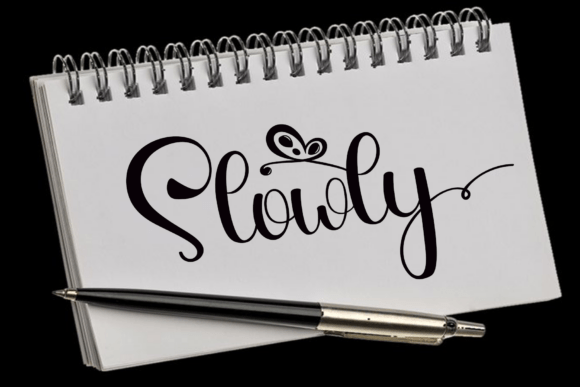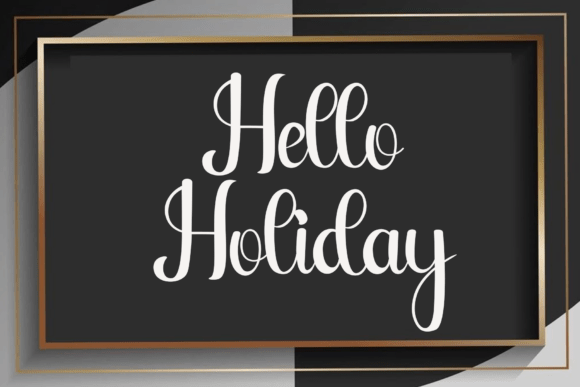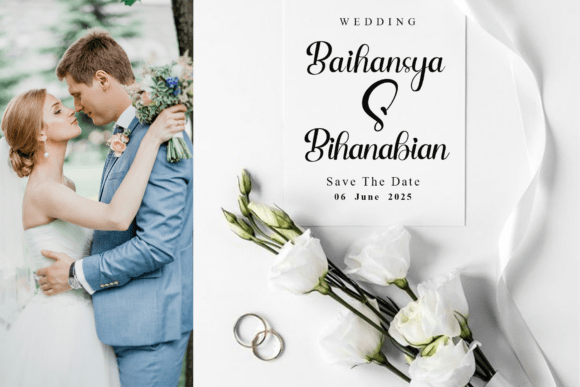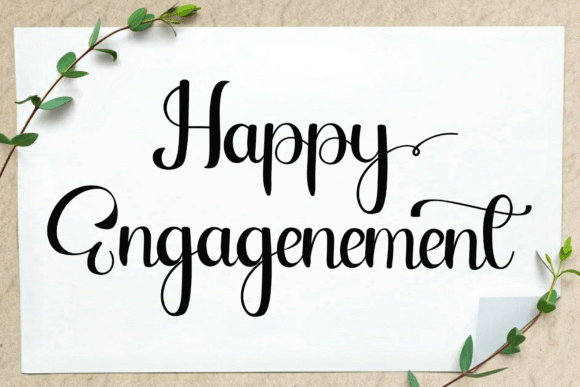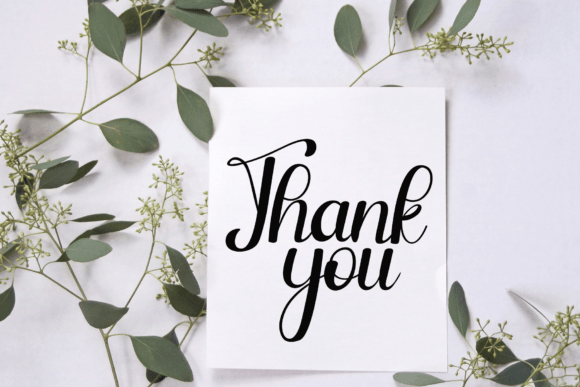
Introducing Alright Font: The Sweet and Elegant Cursive Handwritten Font
Are you looking for a font that can add a touch of elegance and romance to your designs? Look no further than Alright Font, a beautiful cursive handwritten font that is perfect for a variety of design projects. In this article, we’ll take a closer look at Alright Font, its features, and how you can use it to elevate your designs.
What is Alright Font?
Alright Font is a sweet and cursive handwritten font that is designed to add a joyful and romantic touch to your designs. Its gentle and elegant strokes make it perfect for a wide range of design ideas, from branding and logos to wedding things, greeting cards, and more.
Key Features of Alright Font
• Elegant and Cursive: Alright Font features elegant and cursive strokes that give it a sophisticated and refined look.
• Handwritten: The font has a handwritten feel that makes it perfect for designs that require a personal touch.
• Versatile: Alright Font can be used for a variety of design projects, including branding, logos, wedding things, greeting cards, fashion, lookbook, marketing promotion, and more.
• Fancy and Elegant but still Casual: The font strikes the perfect balance between being fancy and elegant while still being casual and approachable.
Use Cases for Alright Font
Alright Font is a versatile font that can be used for a wide range of design projects. Here are some use cases where Alright Font can shine:
• Branding and Logo: Use Alright Font to create a logo or brand identity that is elegant and sophisticated.
• Wedding Things: Alright Font is perfect for wedding-related designs, such as wedding invitations, wedding cards, and more.
• Greeting Cards: The font’s elegant and cursive strokes make it perfect for greeting cards, including birthday cards, anniversary cards, and more.
• Fashion and Lookbook: Alright Font can be used to create fashion-related designs, such as lookbooks, fashion magazines, and more.
• Marketing Promotion: Use Alright Font to create marketing materials, such as brochures, flyers, and more, that require a touch of elegance and sophistication.
Why Choose Alright Font?
There are many fonts available that offer similar features to Alright Font. So, why choose Alright Font? Here are a few reasons:
• Unique and Elegant: Alright Font has a unique and elegant look that sets it apart from other fonts.
• Highly Versatile: The font can be used for a wide range of design projects, making it a great addition to any designer’s toolkit.
• Easy to Read: Despite its elegant and cursive strokes, Alright Font is easy to read, making it perfect for designs that require a clear and concise message.
Tips for Using Alright Font
Here are a few tips for using Alright Font in your designs:
• Pair it with a Sans-Serif Font: Pair Alright Font with a sans-serif font to create a nice contrast and add visual interest to your design.
• Use it for Headings and Titles: Alright Font is perfect for headings and titles, where its elegant and cursive strokes can shine.
• Experiment with Colors and Textures: Don’t be afraid to experiment with different colors and textures to add depth and interest to your design.
Alright Font is a beautiful and elegant cursive handwritten font that is perfect for a wide range of design projects. Its unique and elegant look, versatility, and ease of use make it a great addition to any designer’s toolkit. Whether you’re designing a logo, wedding invitation, or marketing material, Alright Font is sure to add a touch of elegance and sophistication to your design.